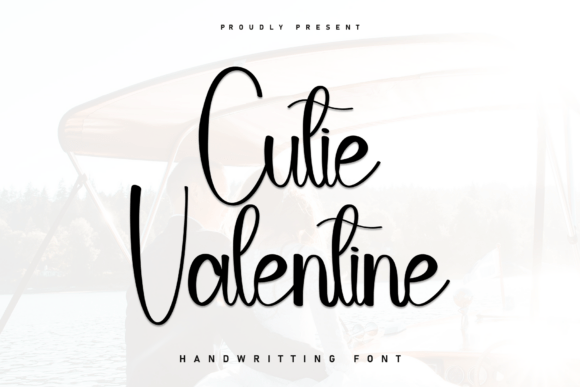
Cutie Valentine
Finding the right design elements can be challenging, but Cutie Valentine offers an exceptional collection that elevates your work instantly.
Whether you are creating POD (Print on Demand) products, wedding invitations, or social media graphics, Cutie Valentine is an ideal fit.